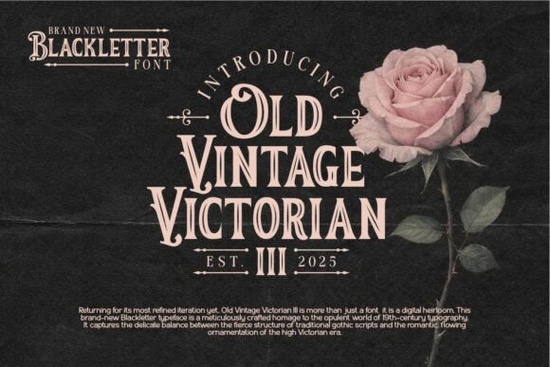
Old Vintage Victorian III Font is a standout choice for anyone looking to add a touch of historical flair to their design projects. This decorative serif typeface draws inspiration from the ornate typography of the 19th century, offering a rich and detailed aesthetic that feels both authentic and timeless. Whether you're working on vintage apparel, restaurant branding, or display headlines, this font delivers a bold and sophisticated look that commands attention.
Designed with strong serifs, high contrast, and intricate detailing, Old Vintage Victorian III brings a sense of grandeur to any project. Its ornate swashes and decorative elements make it ideal for large-scale applications where impact is key. The font’s ability to evoke classic signage and labels makes it a go-to option for designers aiming to create a nostalgic or traditional vibe.
If you're exploring display fonts that combine elegance with character, Old Vintage Victorian III stands out as a versatile option. It works well in a variety of contexts, from distillery labels to vintage-inspired marketing materials. The font’s unique style ensures that your designs feel both established and distinctive, adding a layer of sophistication that modern sans-serif fonts often lack.
Why Choose Old Vintage Victorian III?
For designers and creators who want to infuse their work with historical charm, Old Vintage Victorian III offers a range of benefits. Its detailed structure allows for expressive typography, making it perfect for headlines, logos, and other visual elements that need to stand out. The font’s high contrast and bold serifs give it a striking presence, while its decorative inlines add a level of intricacy that elevates the overall design.
This font is particularly useful for those working on print-on-demand projects or small business branding. Its vintage appeal can help differentiate your products in a crowded market, giving them a more personalized and artisanal feel. Whether you're designing packaging, promotional materials, or social media graphics, Old Vintage Victorian III provides a reliable and stylish solution.
How to Use Old Vintage Victorian III Effectively
When using Old Vintage Victorian III, it's important to consider the context and scale of your project. Because of its detailed nature, it works best in larger sizes where the ornate features can be fully appreciated. For smaller text, it may be better to pair it with a simpler font to maintain readability without sacrificing style.
Try experimenting with different color schemes to see how the font interacts with various backgrounds. Dark text on a light background often highlights the font’s contrast and detail, while light text on a dark background can create a dramatic and eye-catching effect. Don’t be afraid to play with spacing and alignment to achieve the desired visual balance.
If you're interested in similar fonts, you might also enjoy exploring other display typefaces that offer unique styles and historical influences. Each of these options has its own strengths and can complement different design goals.
Whether you're a designer, crafter, or small business owner, incorporating Old Vintage Victorian III into your work can add a layer of authenticity and visual interest. Its combination of historical inspiration and modern usability makes it a valuable addition to any font library.
Before finalizing your design, take a moment to test the font in different formats and sizes. This will help ensure that it meets your needs and enhances the overall look of your project. With careful consideration and experimentation, you can make the most of this beautifully crafted typeface.
Consider adding Old Vintage Victorian III to your next project if you're looking for a font that combines elegance with character. Its ability to convey a sense of history and sophistication makes it a powerful tool for creative expression.
As you continue to explore typography options, keep in mind the importance of selecting fonts that align with your design vision. Old Vintage Victorian III is a great example of how a well-crafted typeface can elevate your work and bring a unique personality to your designs.
Take the time to experiment with different styles and combinations. You may find that this font becomes a favorite for many of your future projects. With its versatility and distinctive appearance, Old Vintage Victorian III is sure to make an impression.
- Test the font in different sizes and layouts.
- Pair it with complementary fonts for balance and readability.
- Use it in large-scale applications where its details can shine.
- Explore how it works with different color schemes and backgrounds.